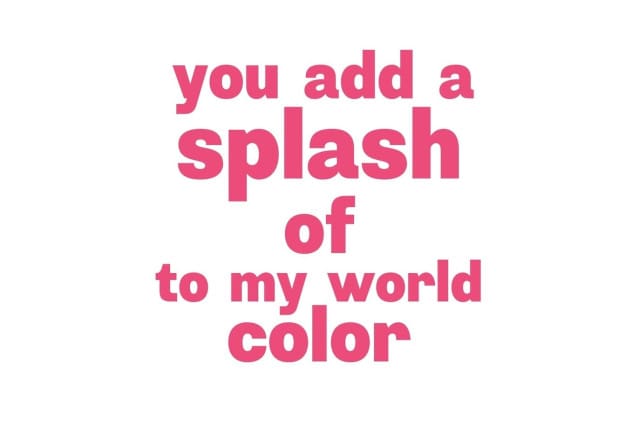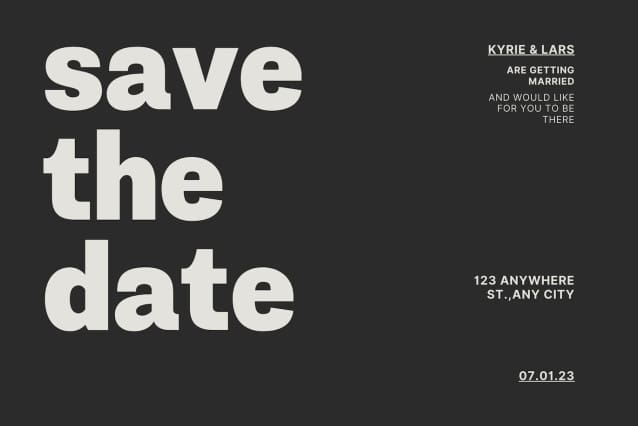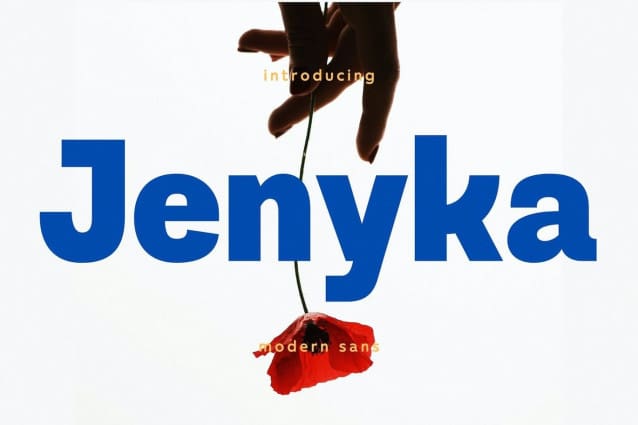
Jenyka Font
Jenyka Font – A beautiful series of letters is encapsulated in this “Jenyka” font. Neat lettering is perfect for modern writing needs and is easy on the eyes. It gives a modern feel while remaining stylish when used for writing. Cleanliness in the making of each letter is our top priority. You can have fun and get creative using this font product we created because the results will definitely be very satisfying.